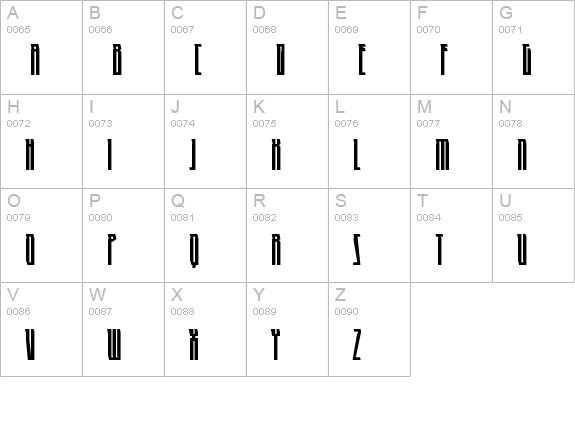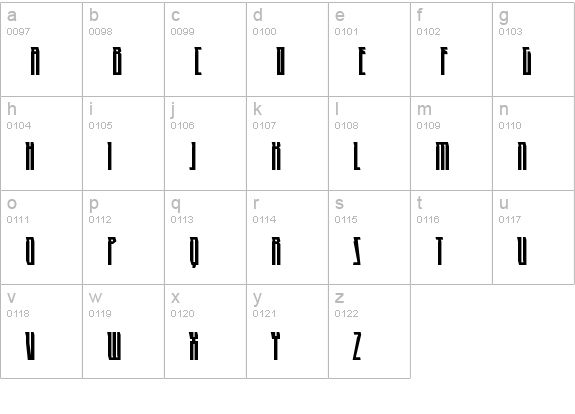
HighRise BB Font Details
Introducing HighRise BB font, a modern and stylish typeface that exudes sophistication and elegance. With its tall and slender letterforms, HighRise BB is perfect for adding a touch of luxury to your designs. This versatile font is ideal for a wide range of projects, from branding to editorial design. What sets HighRise BB apart is its unique combination of sharp angles and smooth curves, creating a visually striking appearance that commands attention. Whether you're working on a poster, logo, or website, this font will make your text stand out and leave a lasting impression on your audience. Best of all, HighRise BB is available for free download at FontsMarket.com. Don't miss out on the opportunity to enhance your projects with this stunning font. Download HighRise BB today and elevate your designs to new heights.